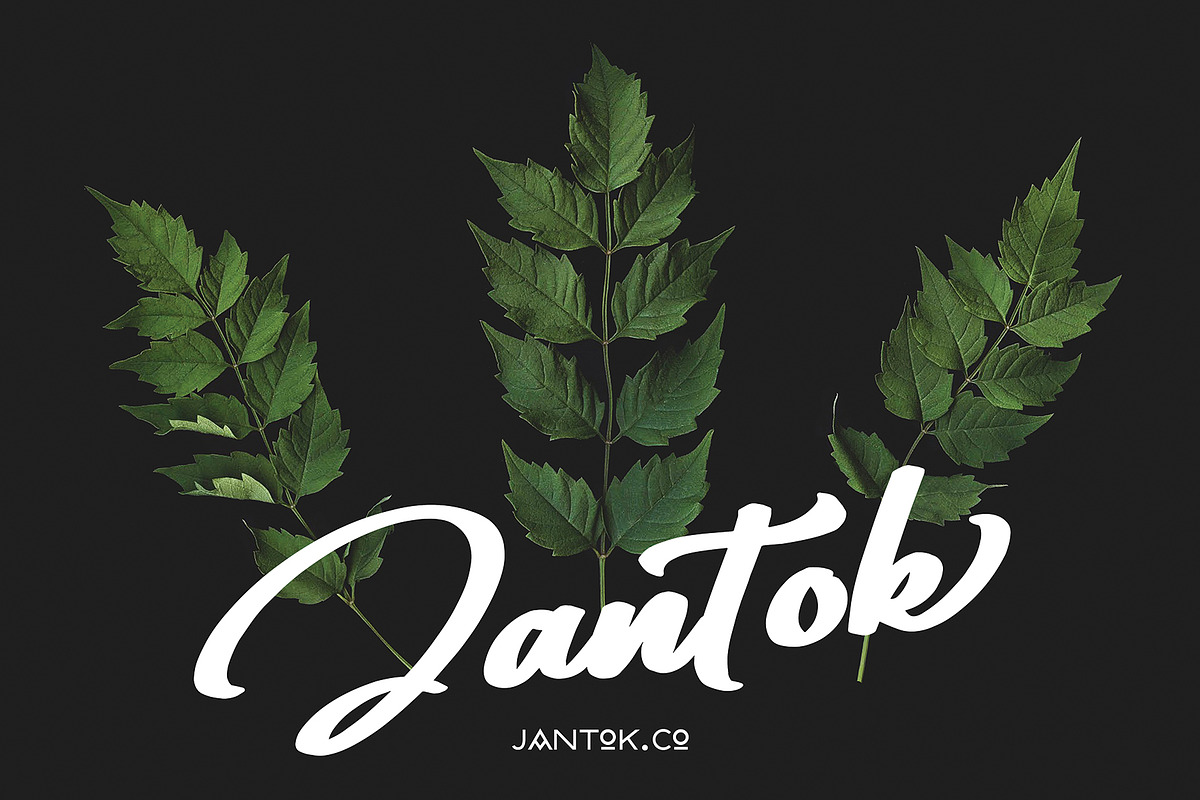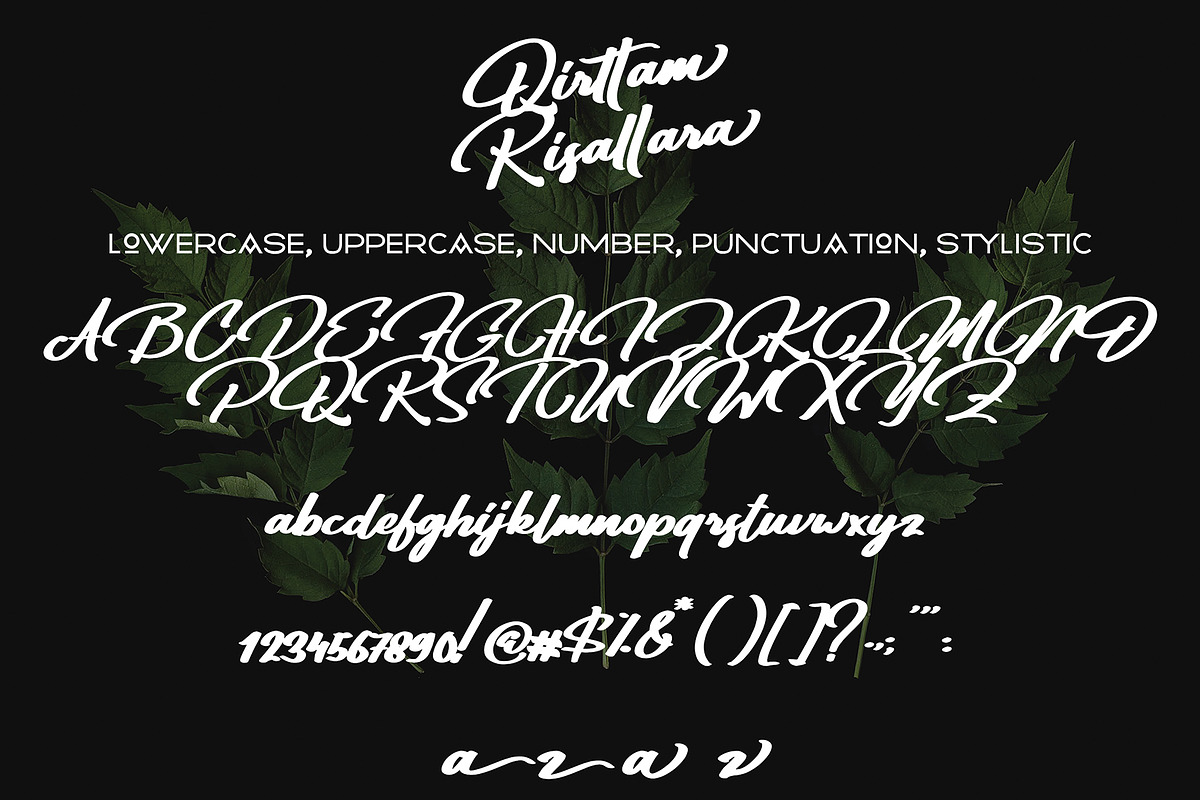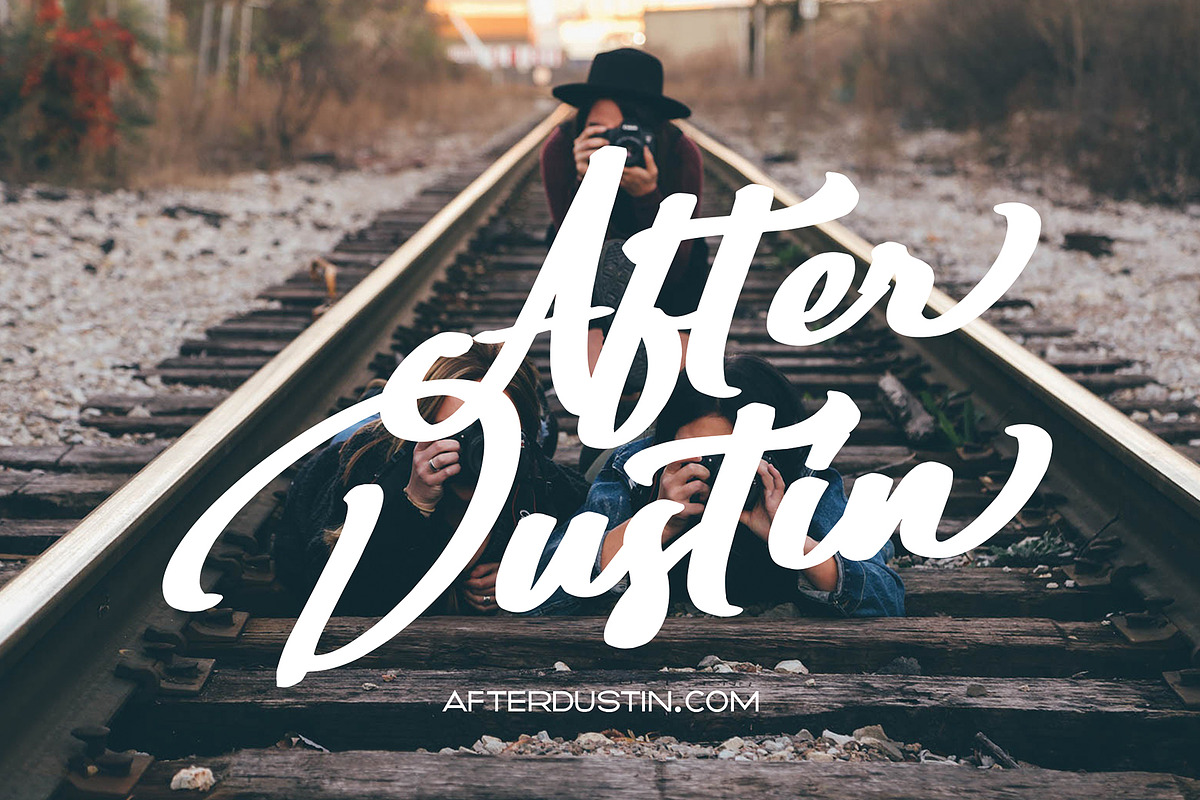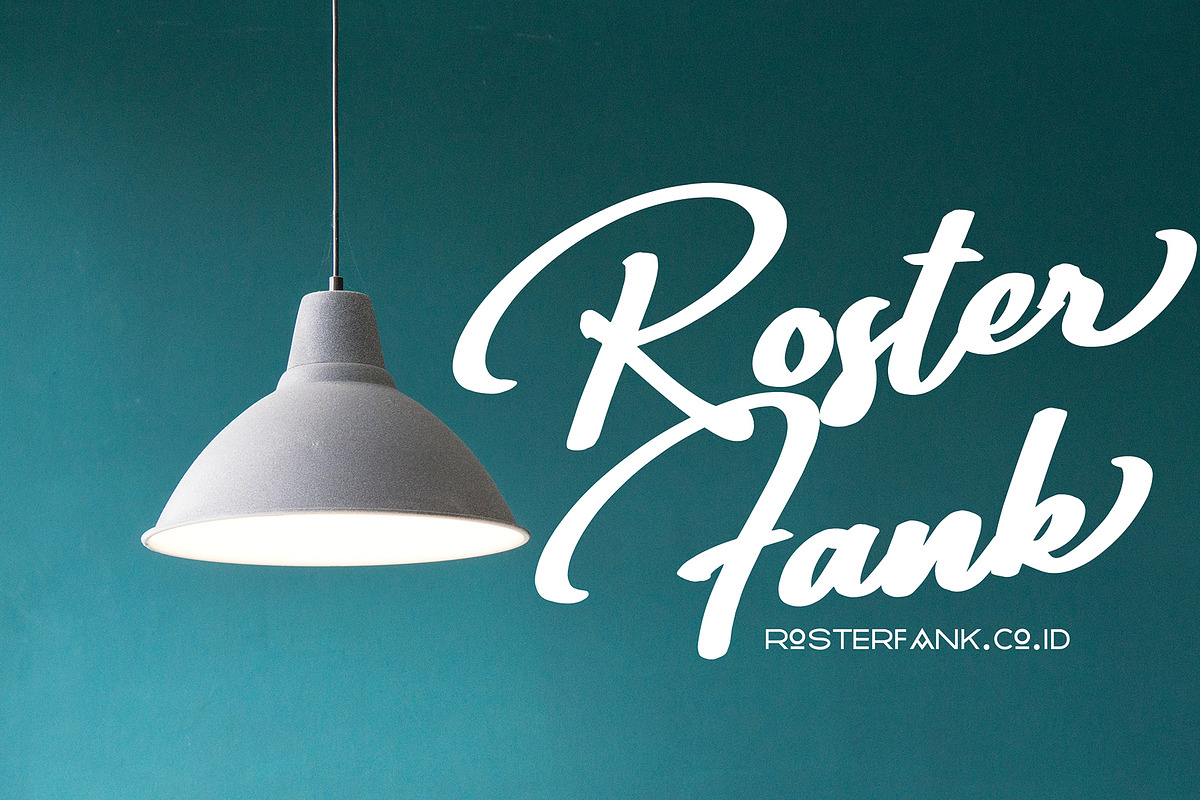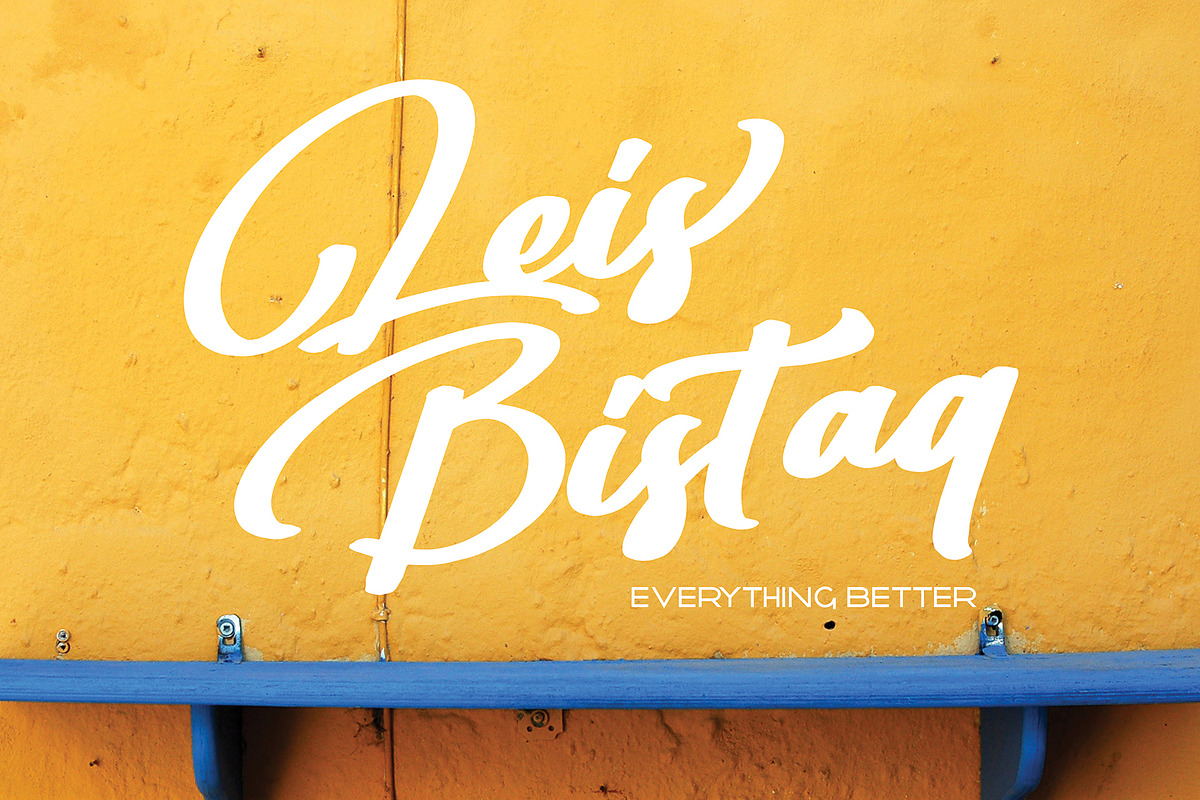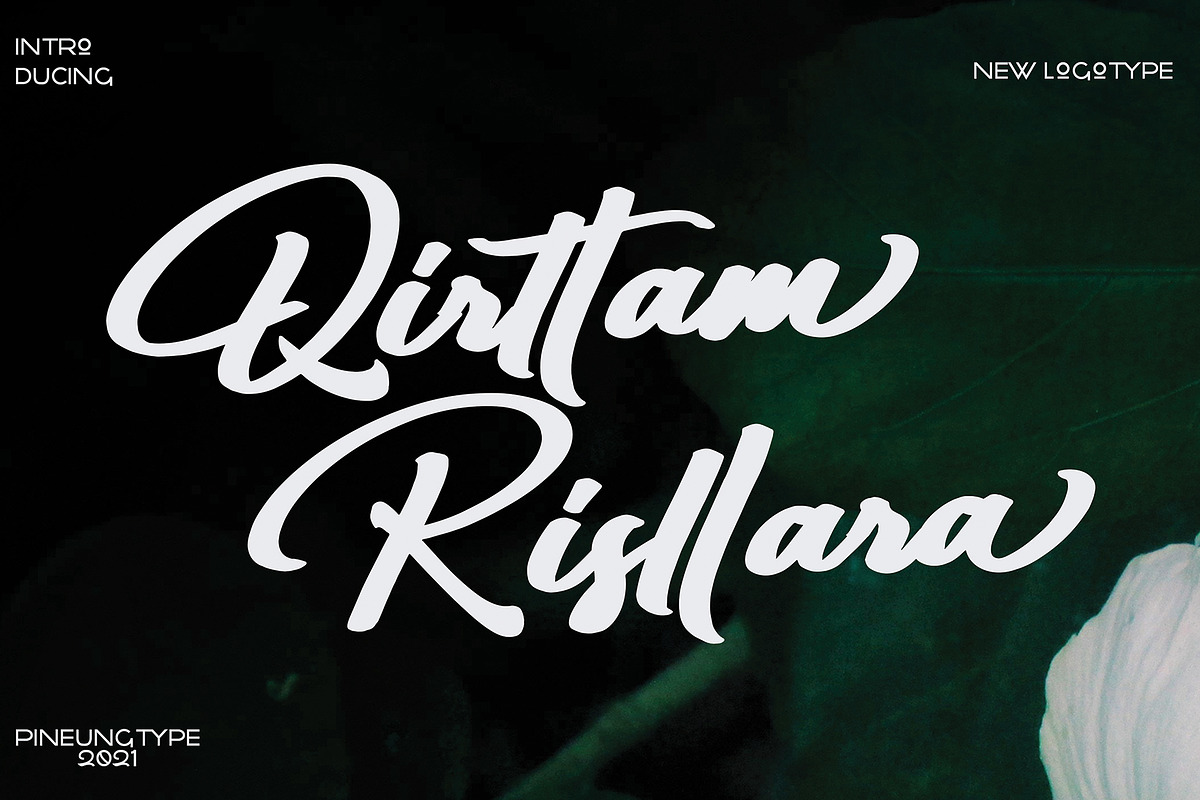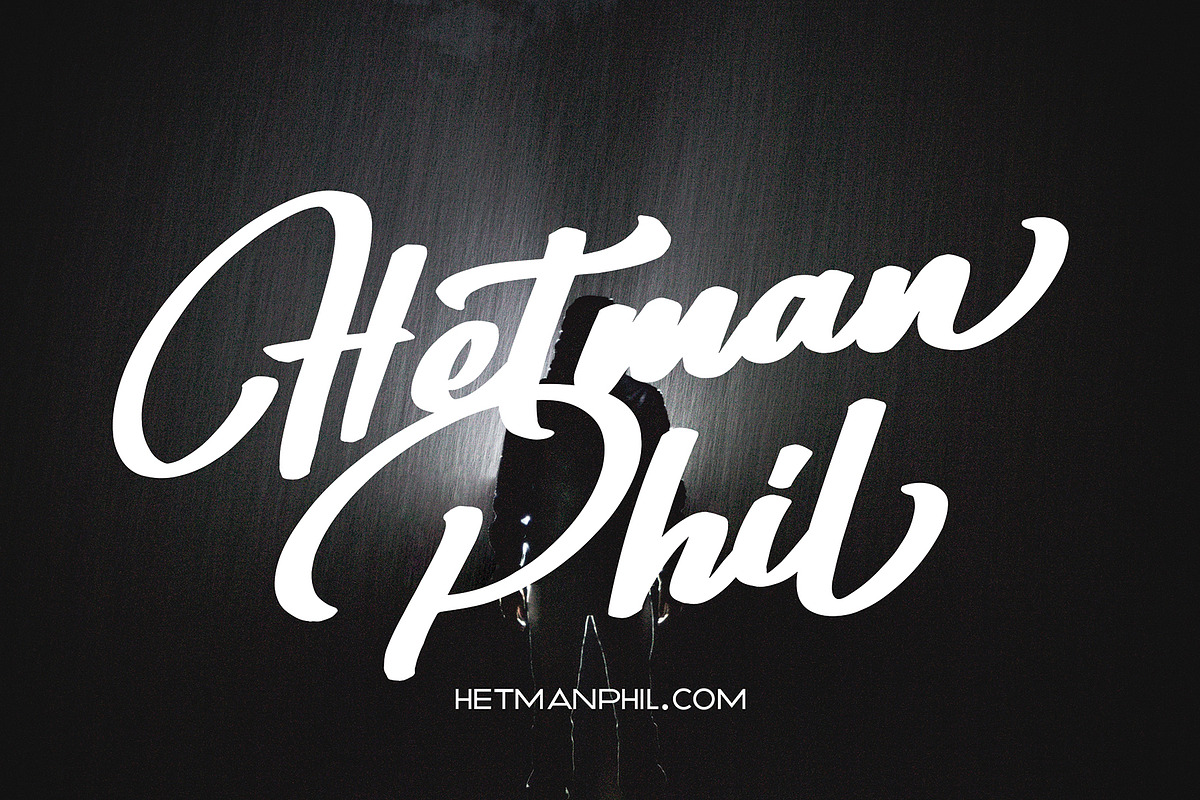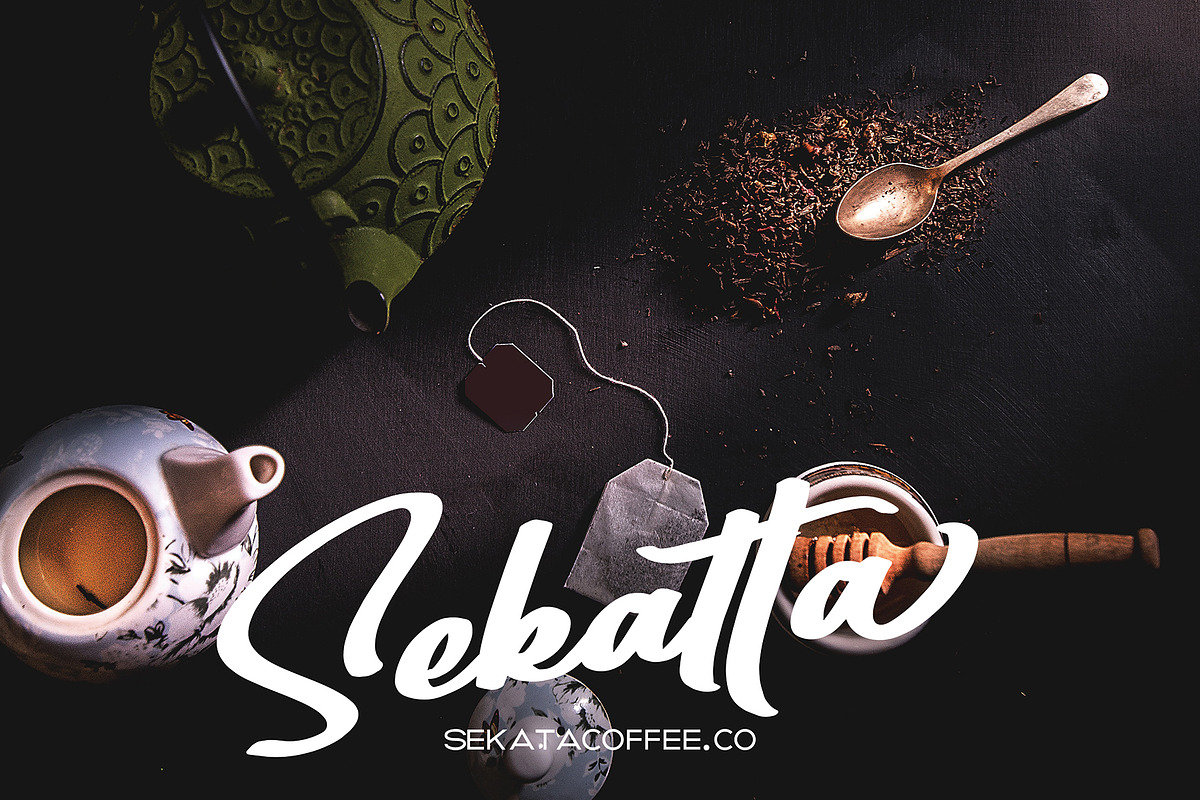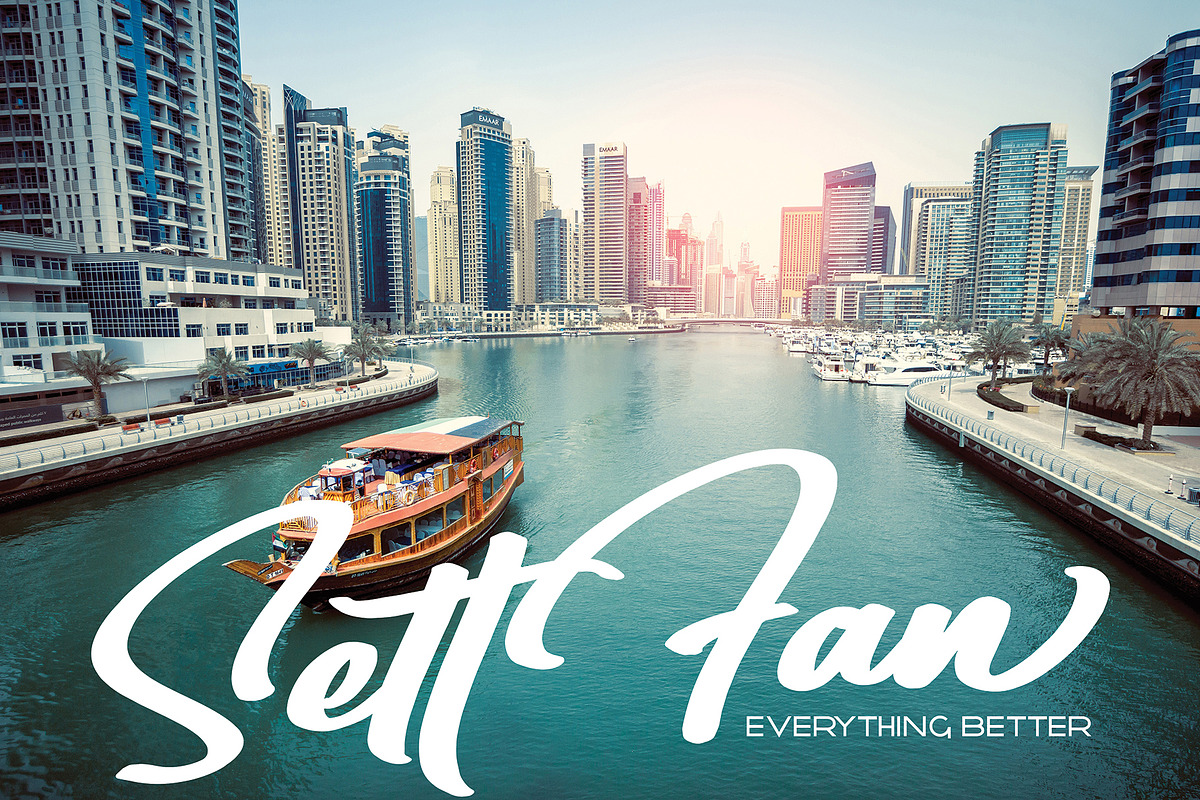
Qirttam Risllara
Qirttam Risllara font with new style, this font will perfect for many different project ex: quotes, logo, blog header, poster, banding, fashion, apparel, letter, invitation, stationery, etc...